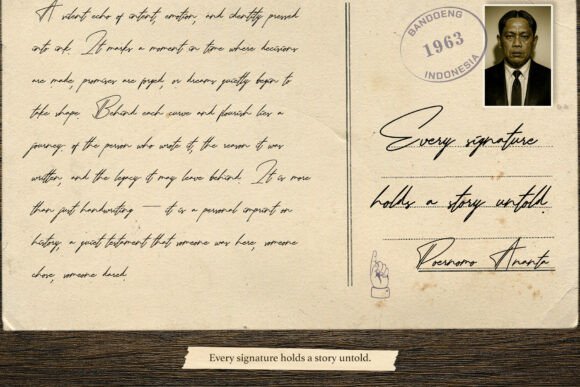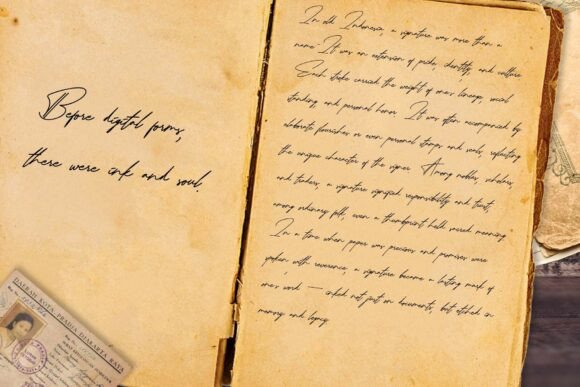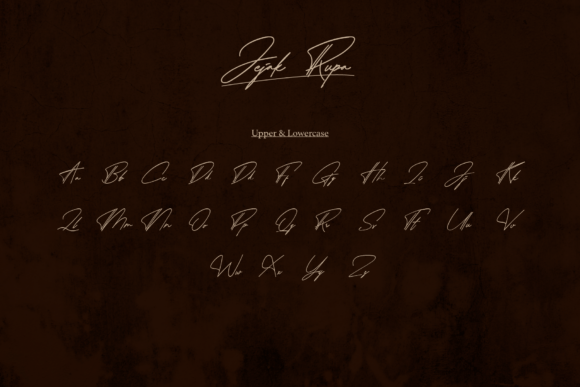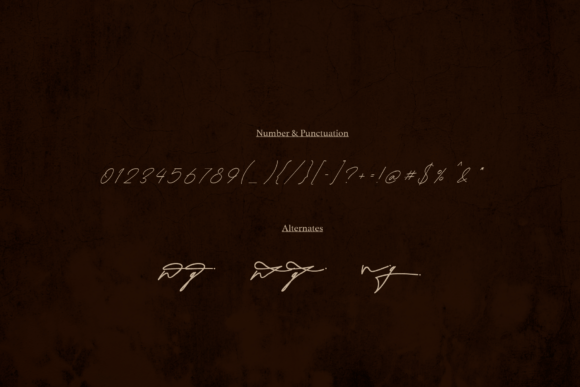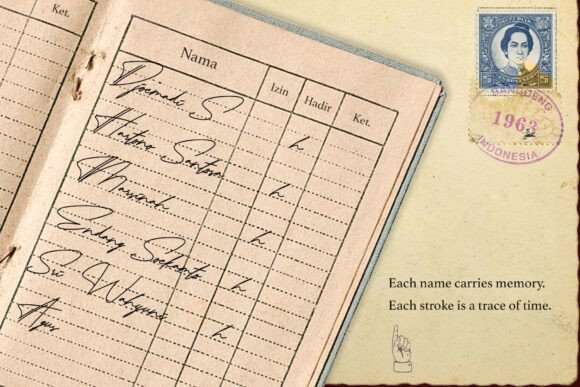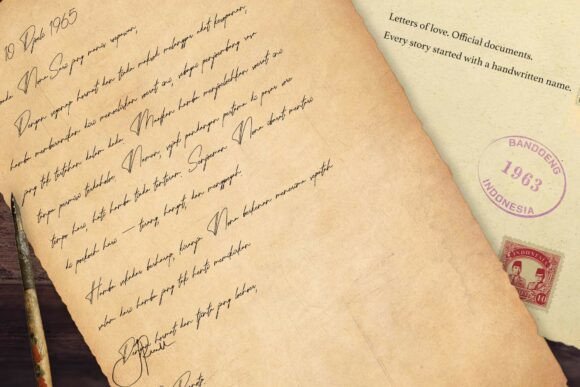
Introduction to Jejak Rupa Font
Jejak Rupa is a signature font inspired by the handwritten charm of Indonesians from the 1970s to the 1990s, particularly those found in love letters, postal archives, and official signatures.
The font is crafted to feel authentic, expressive, and nostalgic, capturing the warmth of pre-digital handwritten communication It is ideal for heritage branding, traditional product packaging, vintage wedding invitations, or editorial projects with a focus on local culture.
Key Features of Jejak Rupa Font